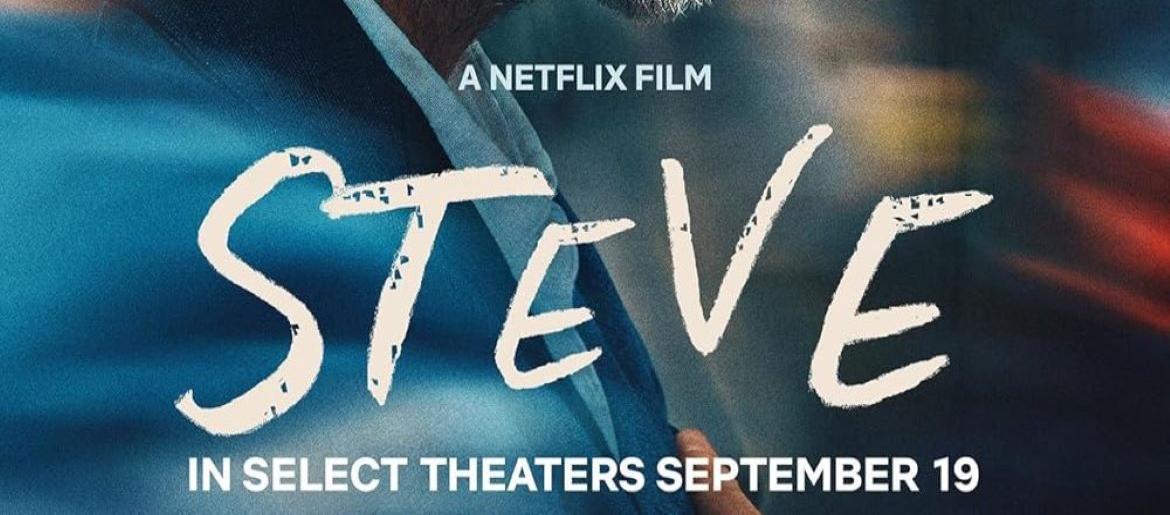
Steve Font
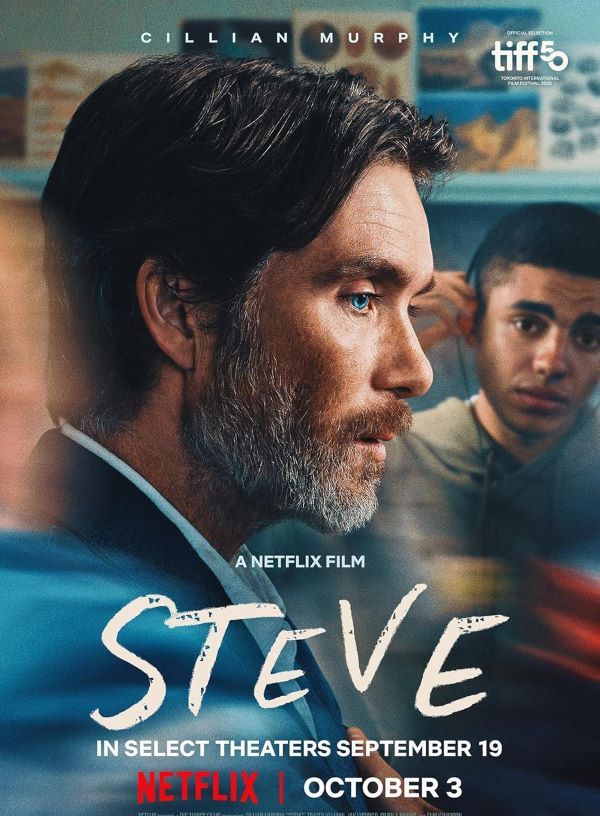
What Font is Used in the Steve Movie Poster?
The Steve Font used in the movie’s title design is Conte Script Plus Regular (PRE), a beautifully flowing script typeface designed by Ingo. We’ve found a very similar font to Conte Script Plus Regular. With its elegant curves and natural handwriting style, Conte Script Plus Regular gives the title a warm, personal touch that fits perfectly with the film’s intimate and emotional storytelling. The font’s graceful letterforms convey authenticity and humanity, mirroring the character-driven essence of the movie.
I think the Steve Font perfectly captures the film’s tone—gentle, reflective, and deeply personal. Its handwritten appearance evokes sincerity and vulnerability, allowing the typography itself to express emotion. The fine balance between sophistication and simplicity makes it a wonderful choice for heartfelt or biographical designs.